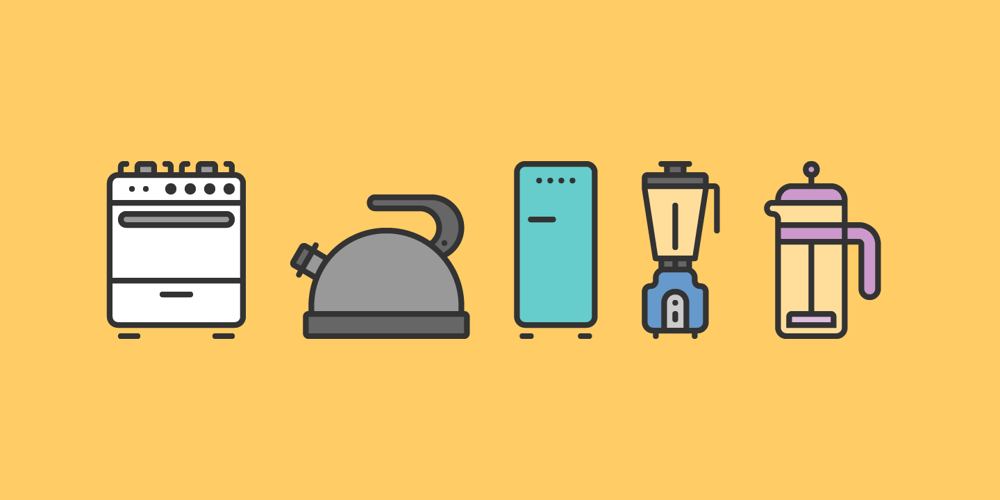
RNS Pictografica Cocina Font Family was designed by Yorlmar Campos and published by RNS Fonts. RNS Pictografica Cocina contains 1 styles and family package options. RNS Pictografica Cocina (Kitchen, culinary arts and food related font) it is comprised of 230 glyphs, it’s based on a modular structure of a minimal thickness on lines and round corners, making a clean visually drawing, give importance to the surround white for improve contrast. The font is better used on a big white canvas for achieve visual focus. And in great sizes for more impact, however the font is legible even at small sizes.